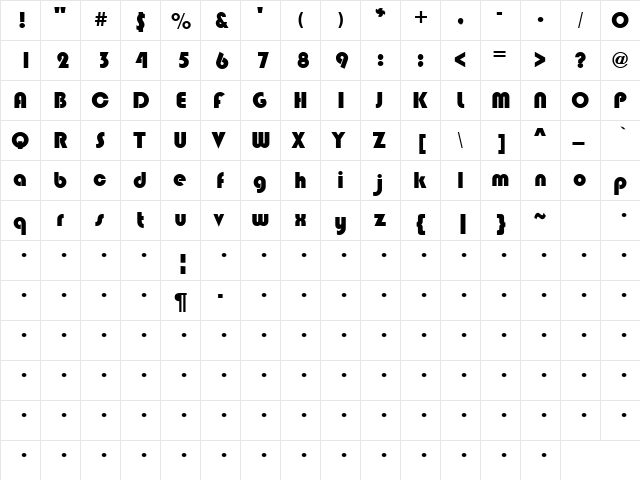
QTBlimpo Regular
Design Context for QTBlimpo Typeface
QTBlimpo offers clean, dependable letterforms without strong stylistic allegiance, making it a practical choice for designers who need flexibility.
Pro Tip: Pair QTBlimpo with a font of contrasting weight or personality to build a more expressive typographic hierarchy.